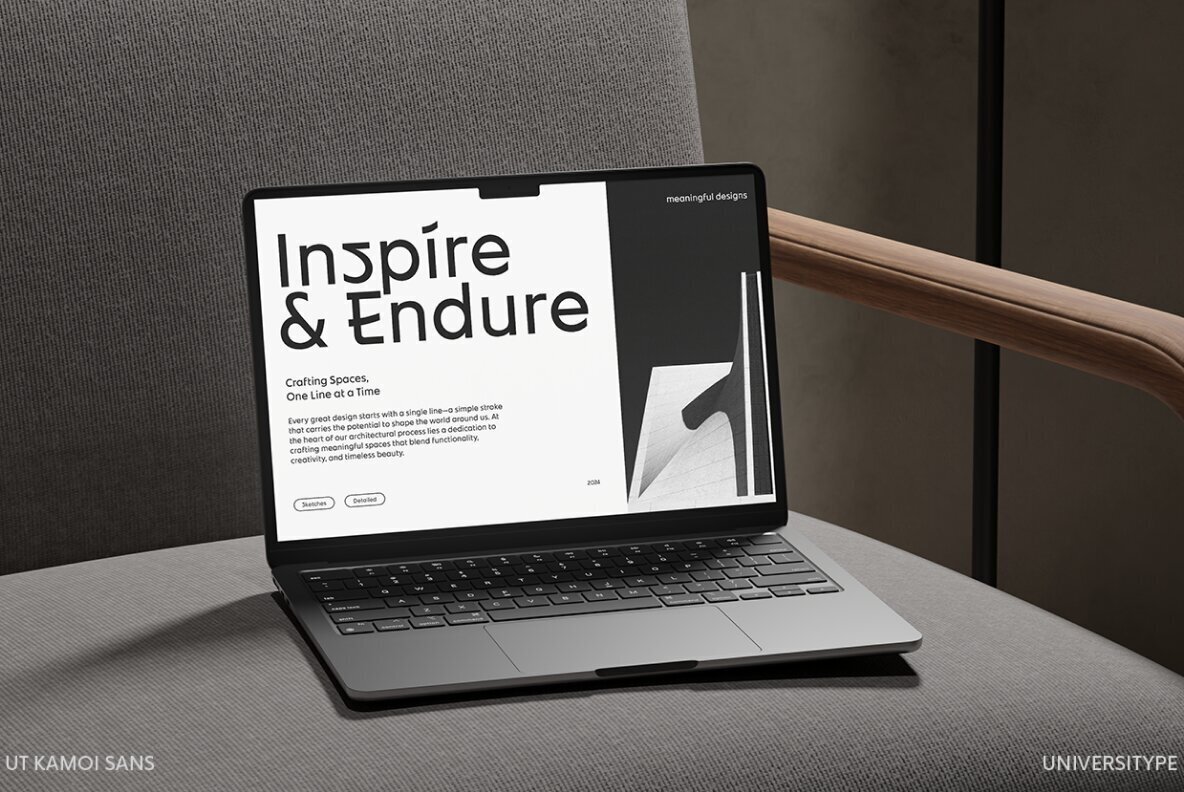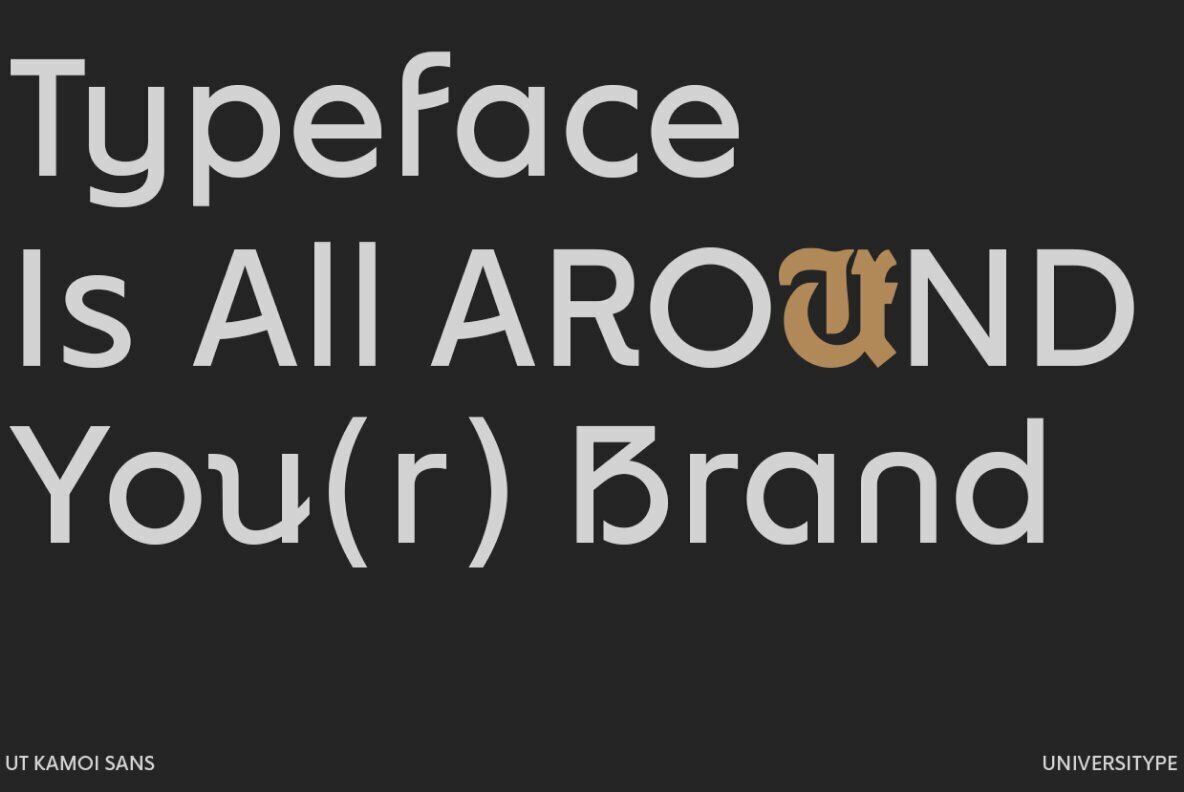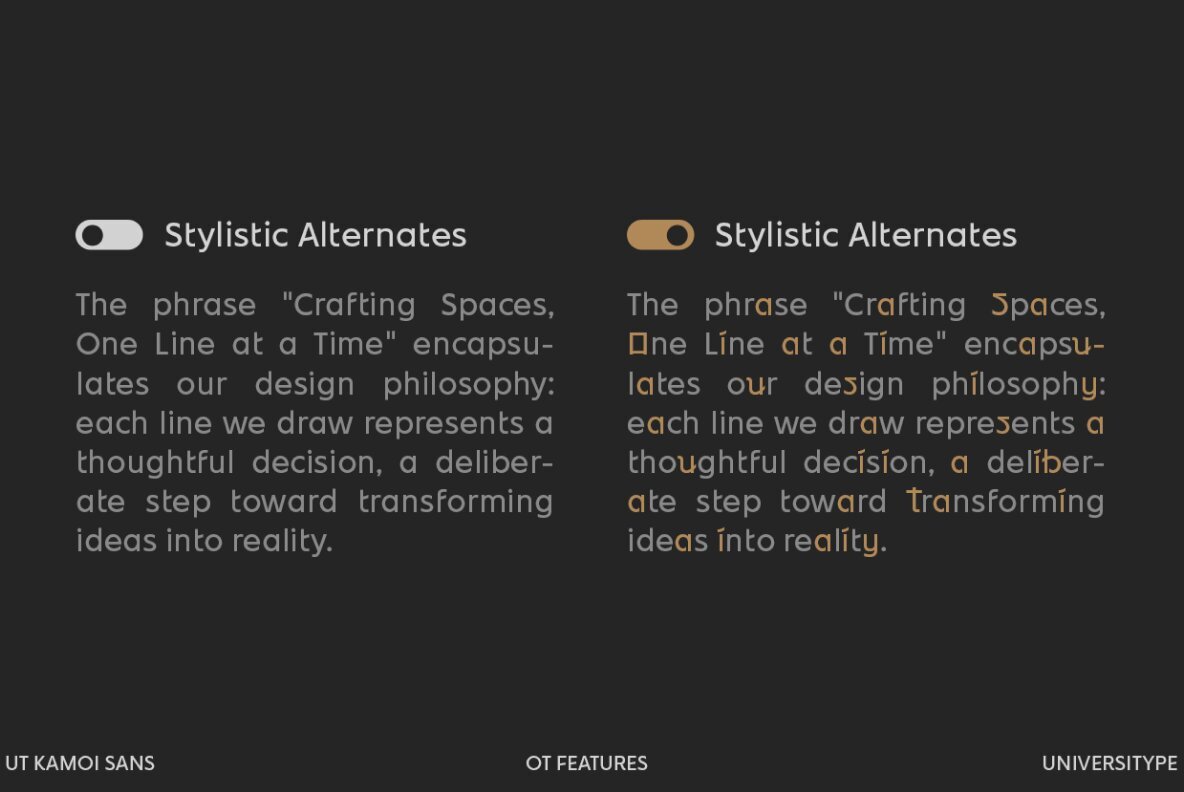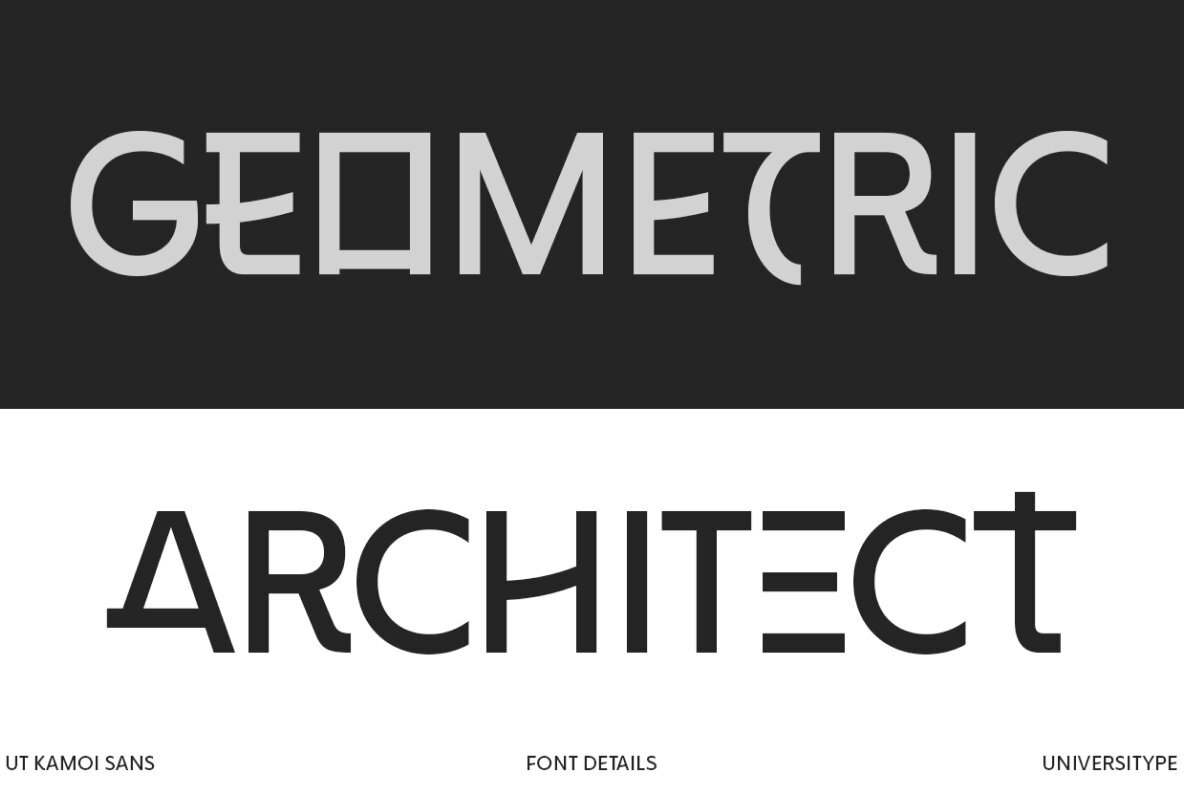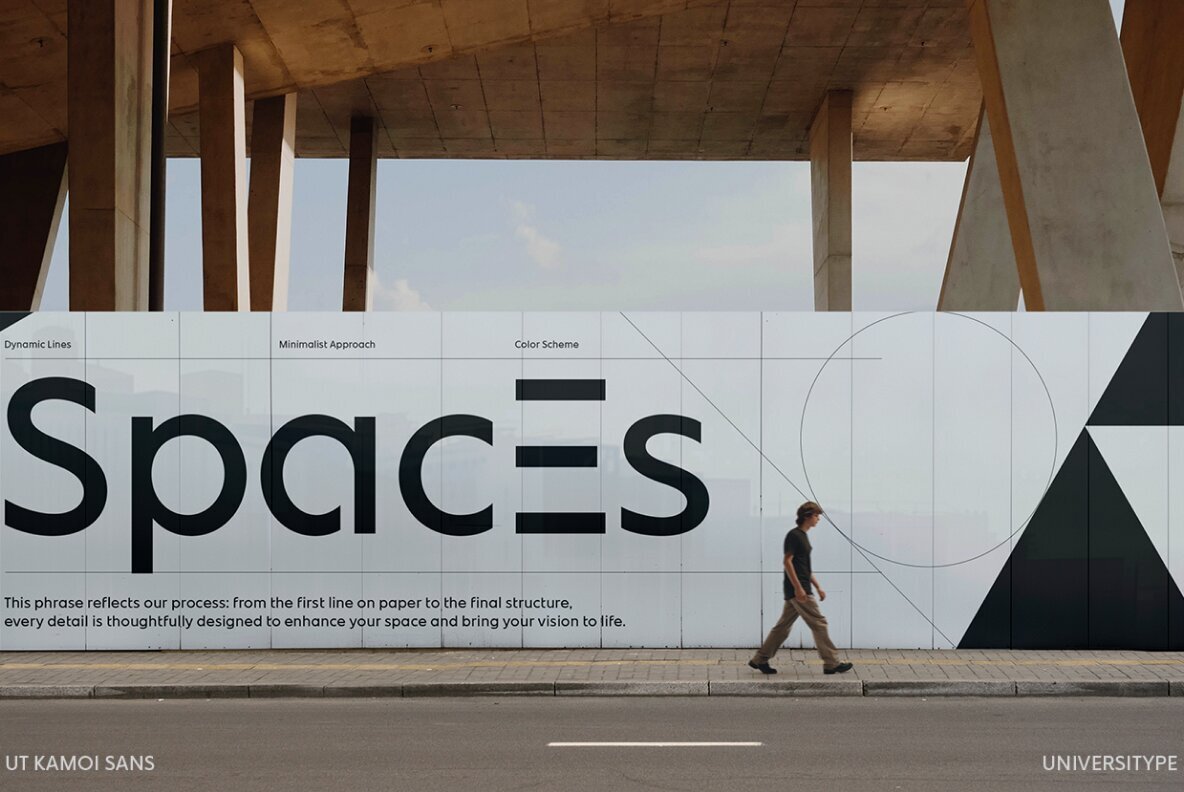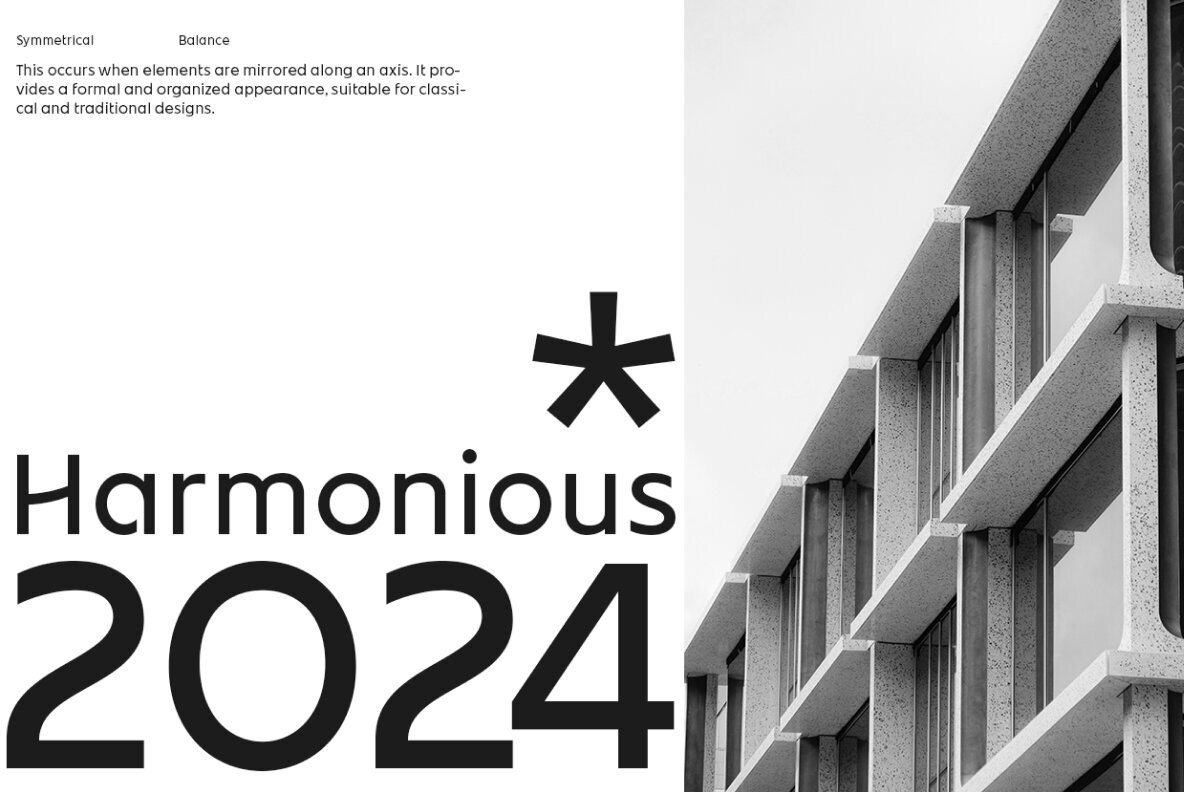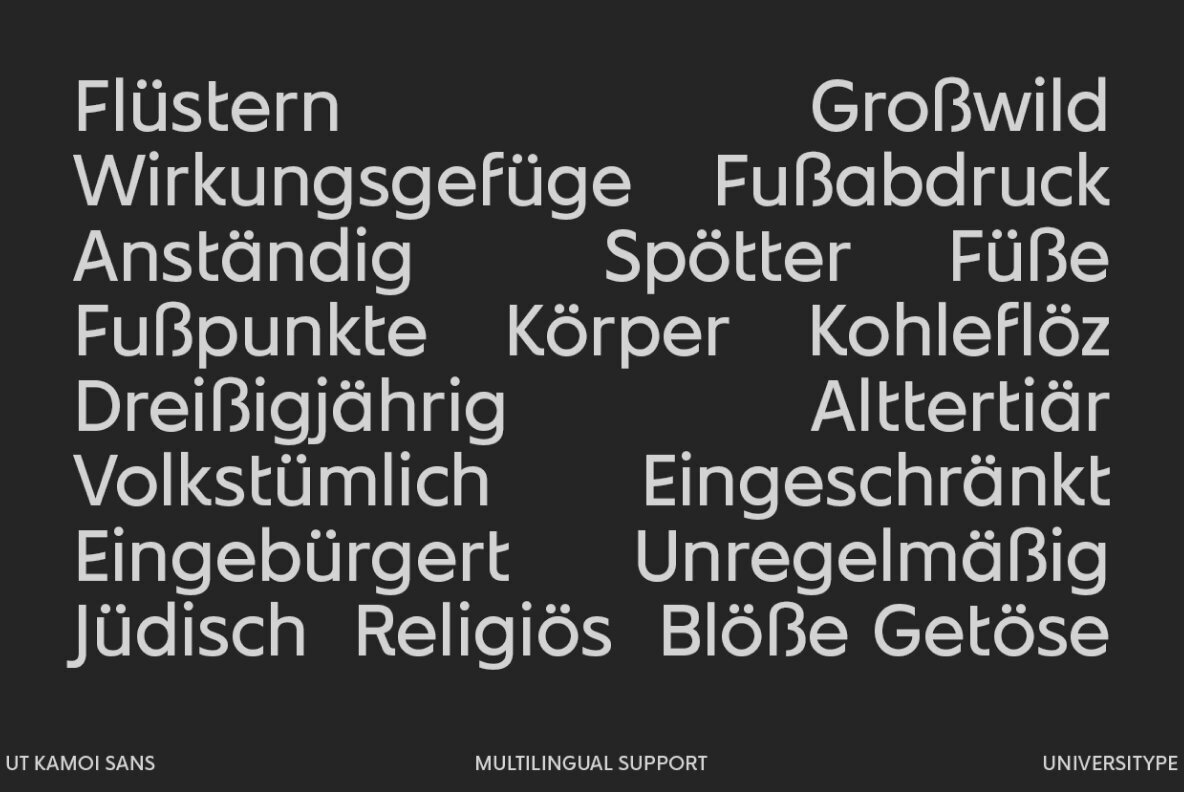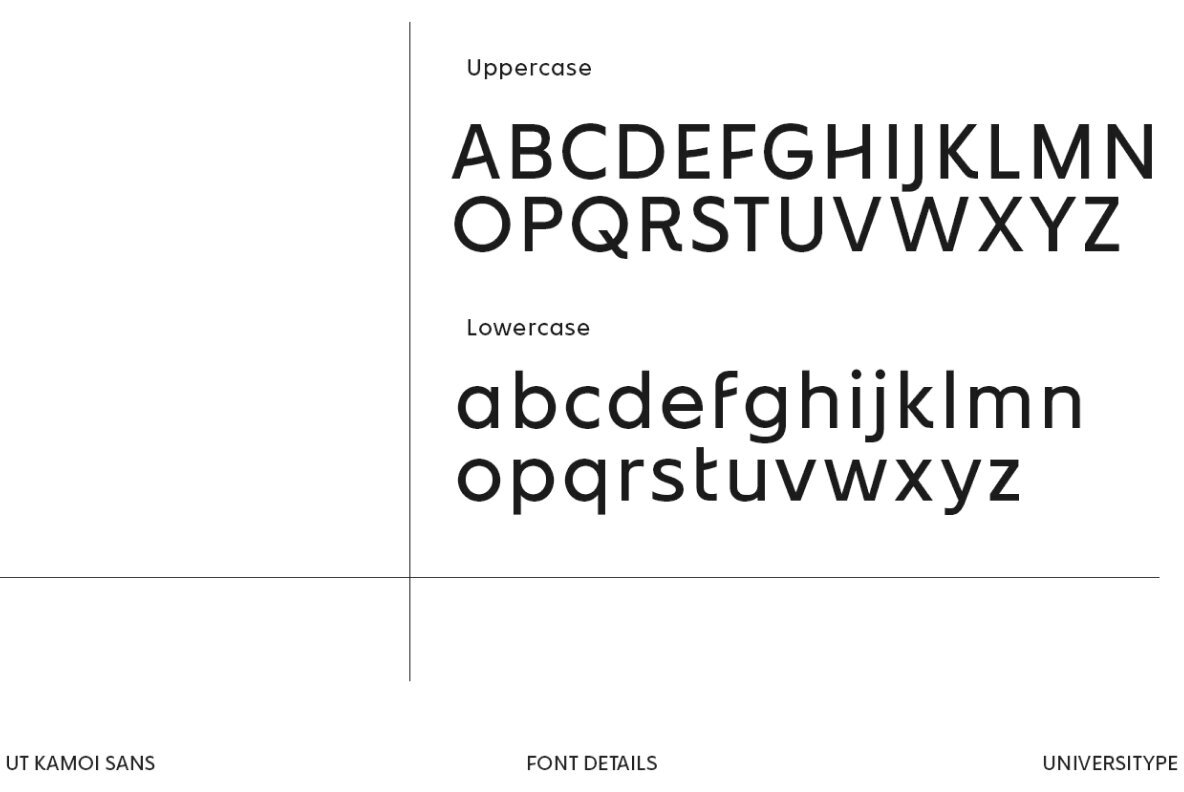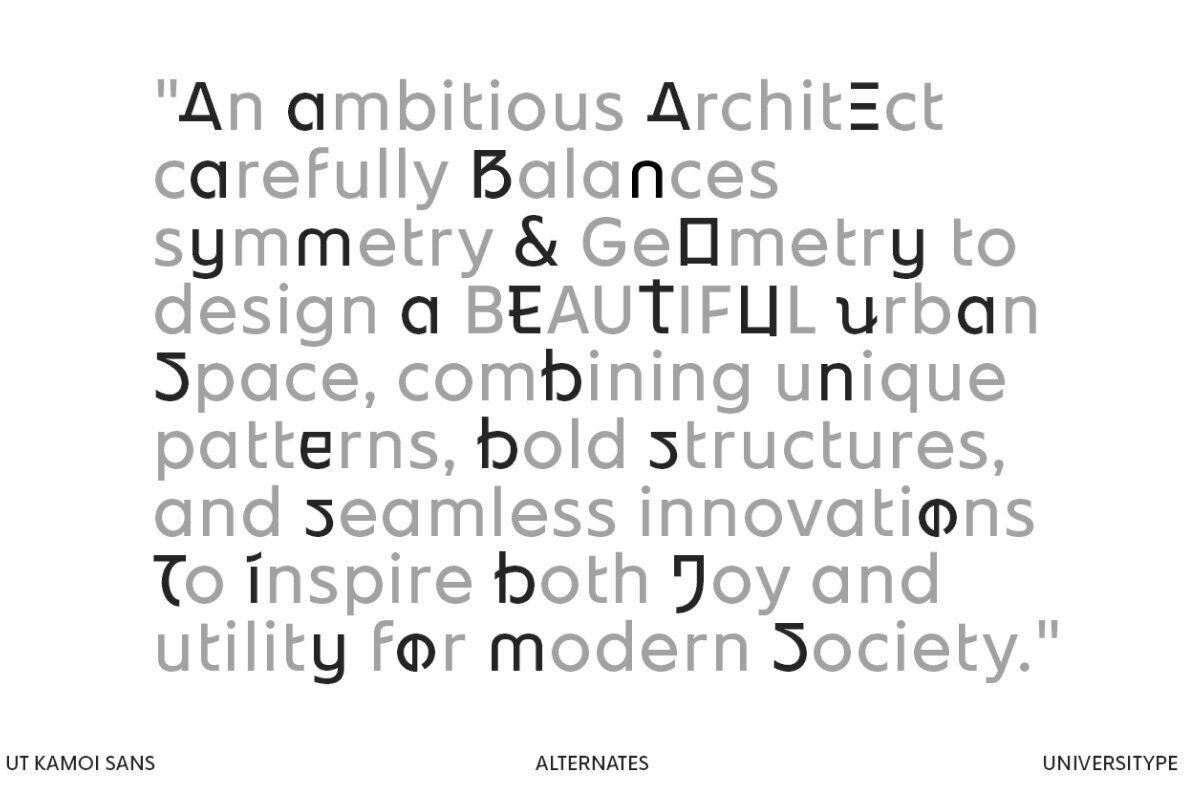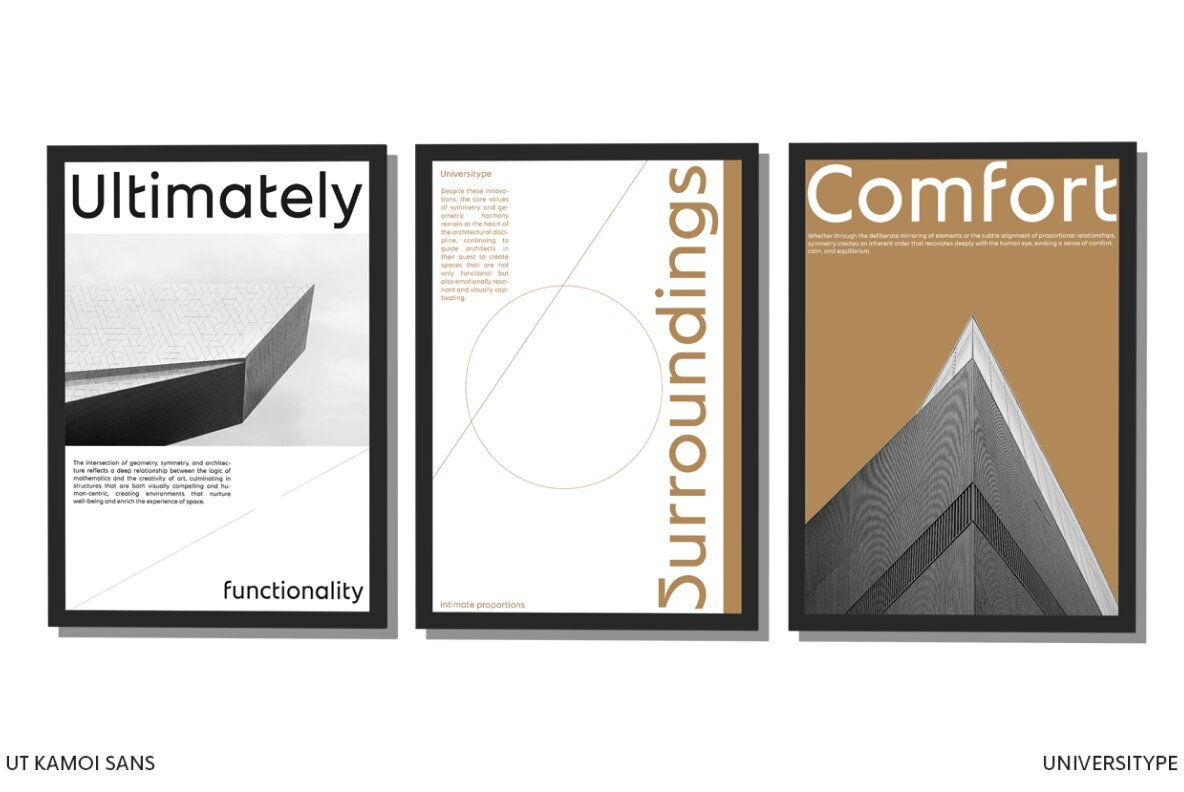
UT Kamoi Sans Font
UT Kamoi Sans: A Harmony of Precision and Culture
UT Kamoi Sans is a geometric sans serif typeface that seamlessly blends modern design precision with the rich cultural nuances of Japanese aesthetics. Drawing inspiration from the fluid curves of Hiragana and Katakana scripts, as well as the detailed symmetry observed in architectural floor plans, this font achieves a balance between artistic expression and functionality. Its bold, geometric shapes offer a versatile option for branding, exuding sophistication and contemporary flair.
This typeface is tailored for creatives, designers, and brands that cherish modern design intertwined with cultural narratives. It is particularly apt for sectors such as architecture, fashion, and technology, appealing to those seeking a typeface that embodies precision and elegance. Despite its geometric nature, UT Kamoi Sans ensures remarkable legibility across all sizes, making it suitable for both digital and print mediums. Its alternate characters, stylistic options, and ligatures provide abundant creative avenues, accommodating diverse brand identities.
The design of UT Kamoi Sans is influenced by the elegant curves of Japanese Hiragana and Katakana scripts and the meticulous order of architectural floor plans. While these scripts offer simplicity and natural rhythm, architectural plans contribute structure and precision. This fusion cultivates a typeface that is both organic and mechanical, honoring tradition while embracing modernity. Ideal for branding, editorial design, and web interfaces, UT Kamoi Sans serves as a silent communicator of tone and brand identity. It's not just a font, but a carefully crafted expression of balance, suitable for diverse applications from tech startups to minimalist designs.